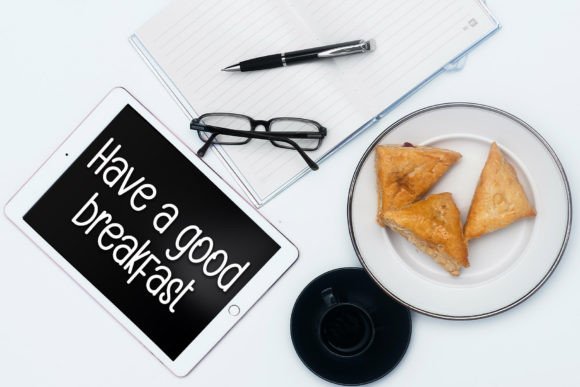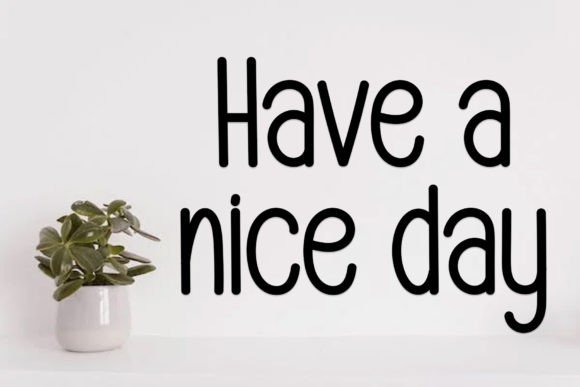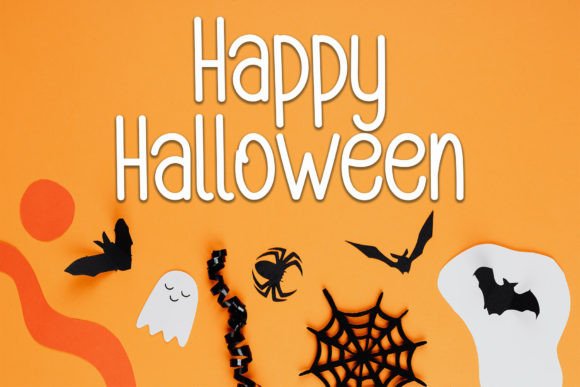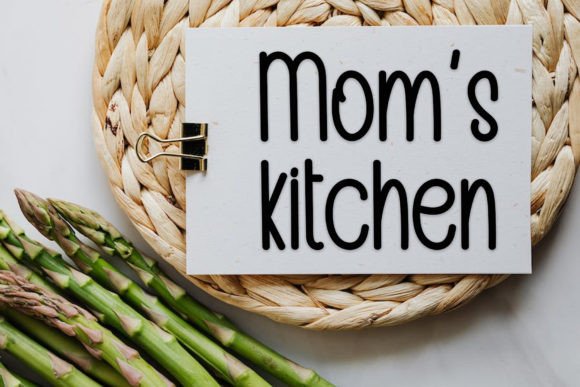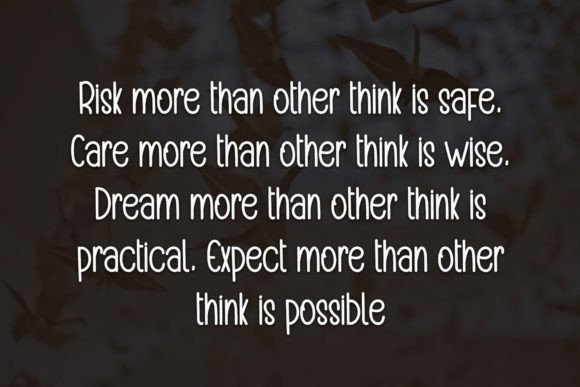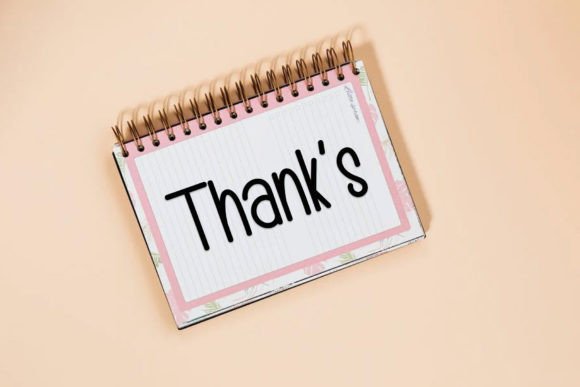
Introducing Farmhouse Vintage Font: Elevate Your Designs with Elegance and Charm
In the world of typography, few fonts manage to capture the essence of elegance and charm as effortlessly as Farmhouse Vintage. This stylish font is designed to bring a touch of sophistication and warmth to any design, making it perfect for creatives, designers, and crafters looking to add a personal touch to their projects. Whether you’re working on invitations, branding, social media graphics, or any other design endeavor, Farmhouse Vintage is sure to make your work stand out.
The Unique Characteristics of Farmhouse Vintage Font
Farmhouse Vintage Font is distinguished by its fluid strokes and natural flow, which combine to create a captivating and sophisticated look. The font’s design is inspired by traditional vintage typography, but with a modern twist that makes it versatile and highly adaptable. Each letterform is carefully crafted to convey a sense of elegance and refinement, making it an excellent choice for designs that require a touch of class.
One of the key benefits of Farmhouse Vintage Font is its versatility. Its unique style makes it suitable for a wide range of design applications, including:
- Invitations: Add a touch of elegance to your wedding invitations, birthday party invites, or any other special occasion with Farmhouse Vintage.
- Branding: Use Farmhouse Vintage to create a distinctive brand identity that sets your business apart from the competition.
- Social Media Graphics: Elevate your social media presence with eye-catching graphics that showcase your personality or brand’s style.
- Stationery and Packaging: Add a personal touch to your stationery, product packaging, or labels with this charming font.
Bringing Warmth and Creativity to Your Designs
Farmhouse Vintage Font is more than just a typography; it’s a design element that brings warmth and creativity to any project. Its natural flow and fluid strokes evoke a sense of handmade craftsmanship, making it perfect for designs that require a personal touch. Whether you’re a designer looking to add a unique element to your work or a crafter seeking to create something special, Farmhouse Vintage is an excellent choice.
Why Choose Farmhouse Vintage Font?
With so many fonts available, why choose Farmhouse Vintage? Here are a few compelling reasons:
- Unique Style: Farmhouse Vintage offers a distinctive style that will set your designs apart from the rest.
- Elegance and Charm: This font exudes elegance and charm, making it perfect for designs that require a touch of sophistication.
- Versatility: Use Farmhouse Vintage for a wide range of design applications, from invitations to branding and social media graphics.
Farmhouse Vintage Font is a stylish and elegant typography that brings a touch of charm and sophistication to any design. Its fluid strokes, natural flow, and unique style make it perfect for a wide range of design applications, from invitations and branding to social media graphics and stationery. Whether you’re a designer, crafter, or simply someone looking to add a personal touch to your projects, Farmhouse Vintage is an excellent choice. With its versatility, elegance, and charm, this font is sure to elevate your designs and make them stand out.